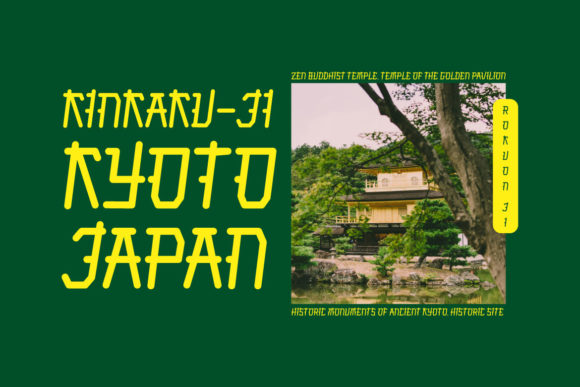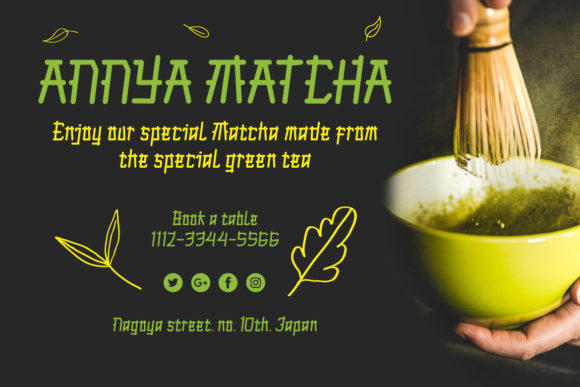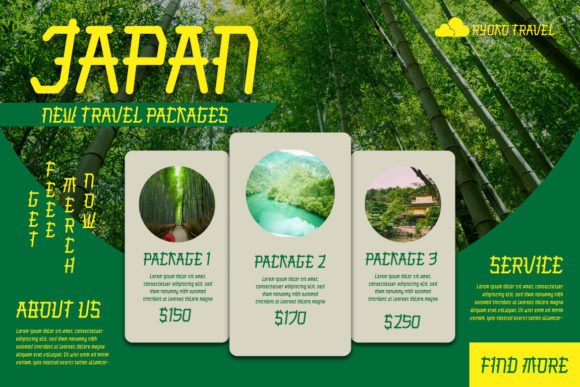
Introduction to Samuri Faux Japanese Font
Have you ever been stuck on a design project, searching for that perfect font to make your creative vision stand out? We’ve all been there, scrolling through design resources, hoping to stumble upon something unique and captivating. But what if I told you that the solution is right in front of you? Enter the Samuri Faux Japanese Font, a stunning display font that adds an exotic and relaxed touch to any project.
This versatile font is perfect for designers looking to elevate their work with a high-quality, one-of-a-kind design element. With its striking and unusual graphic display, the Samuri Faux Japanese Font is sure to grab attention and leave a lasting impression. Whether you’re working on a logo, brochure, or movie title, this font is an essential addition to your design arsenal.
Key Features of Samuri Faux Japanese Font
- High-quality design resource ideal for creative projects requiring a Japanese-inspired aesthetic.
- Unique, faux Japanese characters designed to mimic traditional Kanji and Hiragana scripts.
- Transparent background allows for seamless integration into various design elements and backgrounds.
- Perfect for use in graphic design, digital art, and other creative projects where a Japanese-inspired look is desired.
Honest Review: Samuri Faux Japanese Font
As a designer, I’m always on the lookout for high-quality design resources that can elevate my creative projects. The Samuri Faux Japanese Font caught my attention with its promise of a unique, authentic Japanese aesthetic. After trying it out, here’s my honest review.
What works well: ✨ The font’s bold lines and geometric shapes give it a distinctive look that’s perfect for adding a touch of Japanese flair to your designs. The free download option is also a major plus, making it accessible to designers of all levels. The transparent background is a nice touch, allowing for easy layering and compositing.
Limitations: ⚠️ While the font is great for general use, it may not be suitable for professional or academic applications where accuracy and authenticity are crucial. Additionally, the font’s limitations in terms of language support and character set may make it less versatile than other options.
Overall impression: I’m impressed with the Samuri Faux Japanese Font’s unique style and versatility. While it may not be perfect for every design project, it’s a great addition to any designer’s toolkit. Whether you’re working on a personal project or a client’s creative brief, this font is definitely worth checking out.
- Unique, authentic Japanese aesthetic
- Transparent background for easy layering and compositing
- Perfect for adding a touch of Japanese flair to designs
How to Use Samuri Faux Japanese Font
The Samuri Faux Japanese Font is a versatile design resource that can add a touch of Eastern flair to your creative project. With its high-quality design and transparent background, it’s perfect for designers looking to add a unique element to their work.
Getting the Most Out of the Samuri Faux Japanese Font
To get the most out of the Samuri Faux Japanese Font, try the following tips:
- Experiment with different font sizes and styles to create a unique look.
- Combine the font with other design elements, such as images and graphics, to create a visually appealing design.
- Use the font in a variety of creative projects, from social media graphics to presentations and documents.
The Samuri Faux Japanese Font is perfect for designers who want to add a touch of Eastern flair to their work. Common use cases include:
- Creating social media graphics and posters.
- Designing presentations and documents.
- Developing branding and marketing materials.